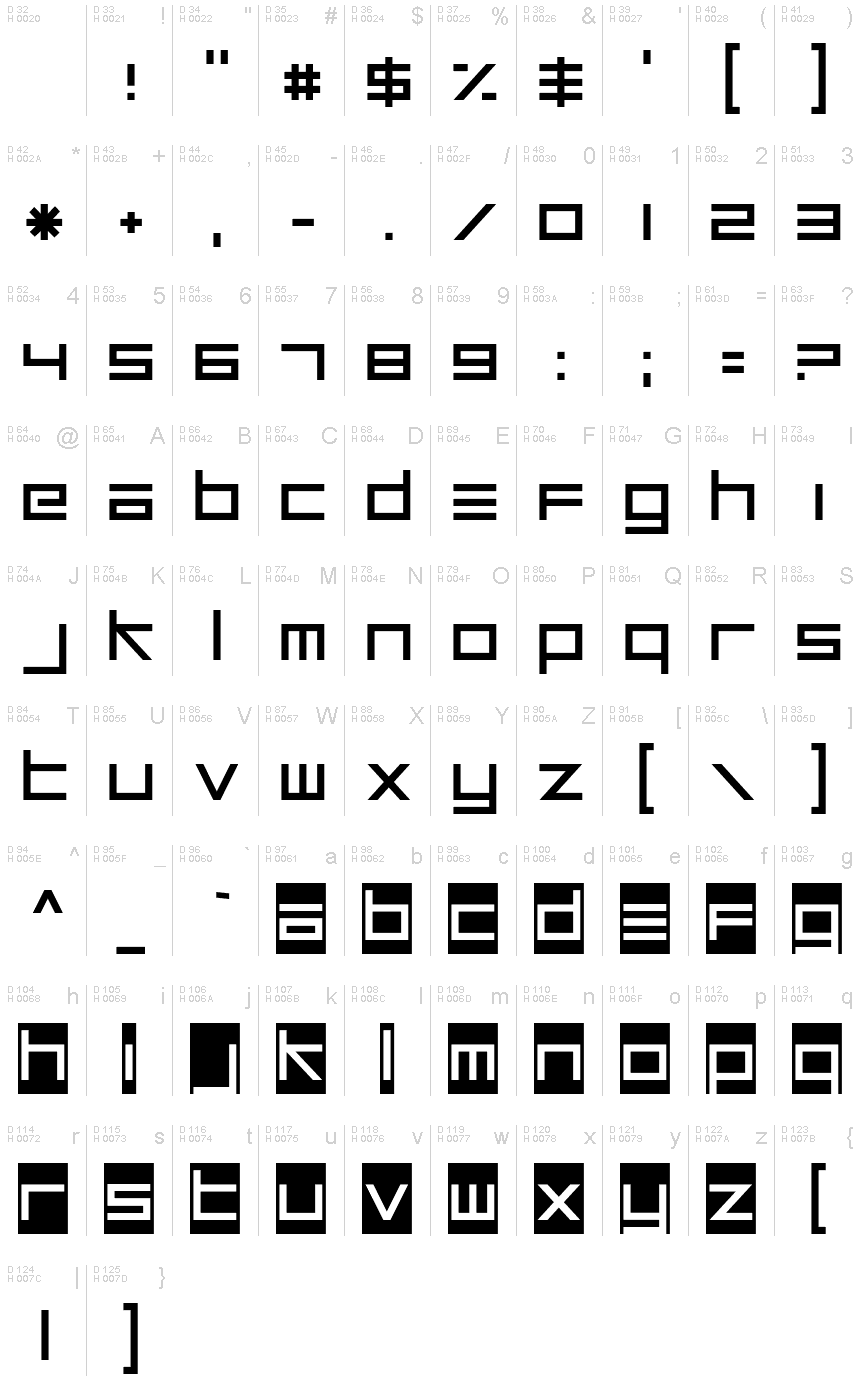
UnsteadyOversteer-Regular
Unsteady Oversteer emerges as a striking display font that defies convention. Crafted by the innovative Ray Larabie, this typeface boasts a geometric techno style that instantly catches the eye. The semi-light weight combined with an expanded width creates a presence that is both assertive and airy, allowing for excellent readability.
What sets Unsteady Oversteer apart is its unique inverse lowercase design—imbuing each word with an edgy and dynamic character. This distinctive feature adds a layer of visual interest that can transform any creative project.
With its mix of modernity and unconventional flair, Unsteady Oversteer is particularly well-suited for branding, poster design, and digital media that demand attention. Its aesthetic appeal lies in the balance between its clean lines and the raw emotion it conveys—described by Larabie himself as "made with anger, delivered with love." This font promises to infuse your work with an unforgettable personality.
What sets Unsteady Oversteer apart is its unique inverse lowercase design—imbuing each word with an edgy and dynamic character. This distinctive feature adds a layer of visual interest that can transform any creative project.
With its mix of modernity and unconventional flair, Unsteady Oversteer is particularly well-suited for branding, poster design, and digital media that demand attention. Its aesthetic appeal lies in the balance between its clean lines and the raw emotion it conveys—described by Larabie himself as "made with anger, delivered with love." This font promises to infuse your work with an unforgettable personality.
Ray Larabie